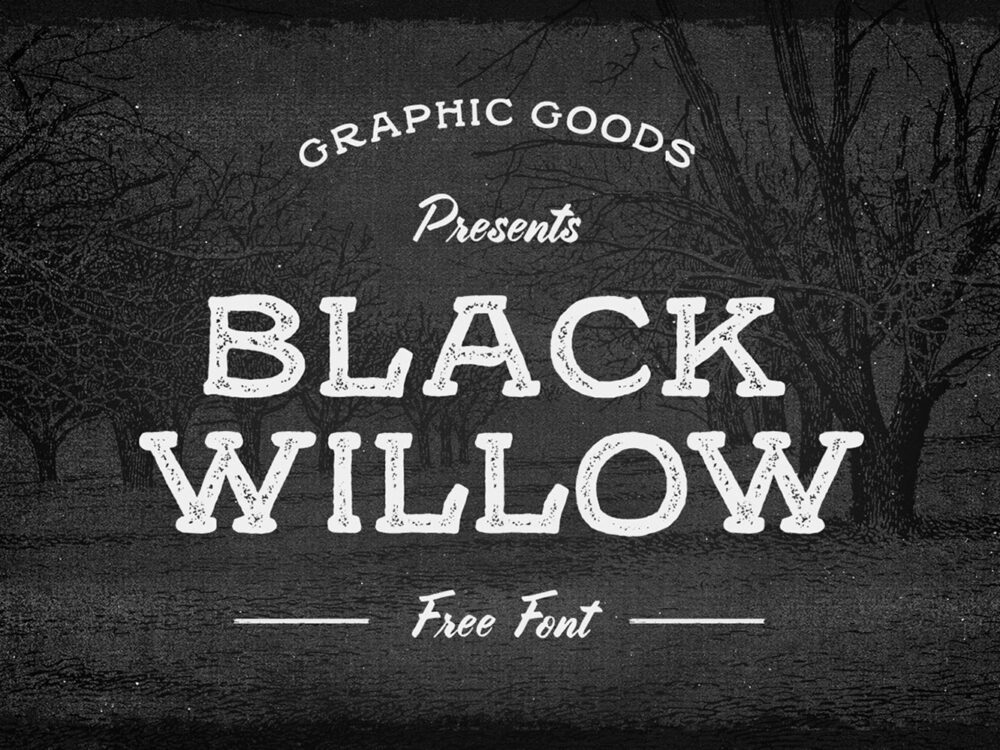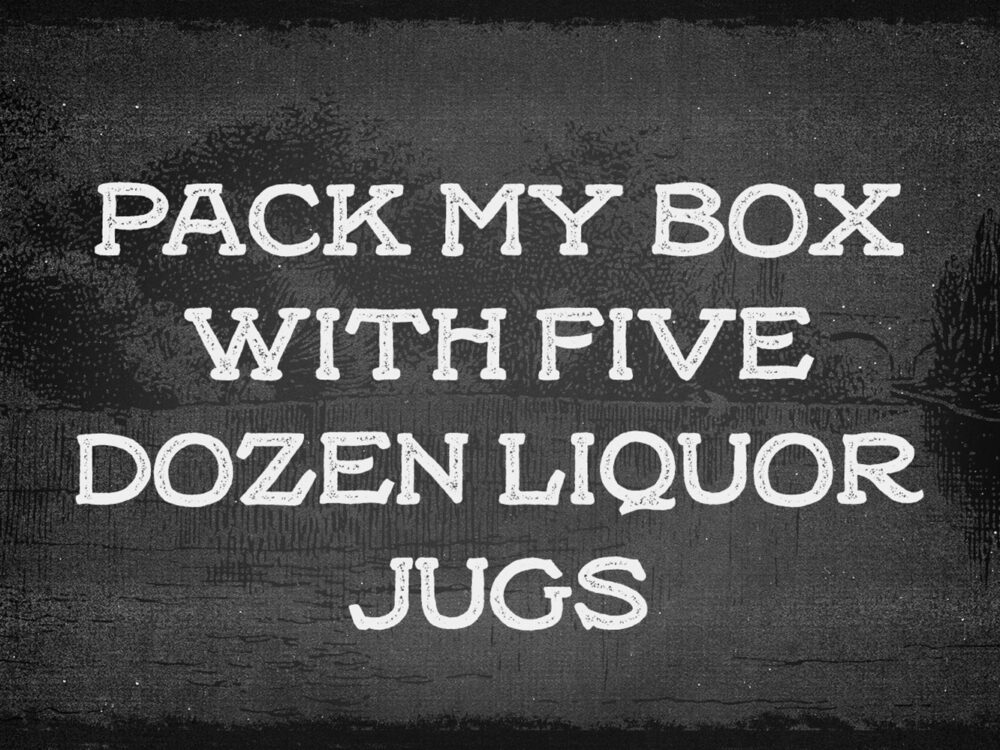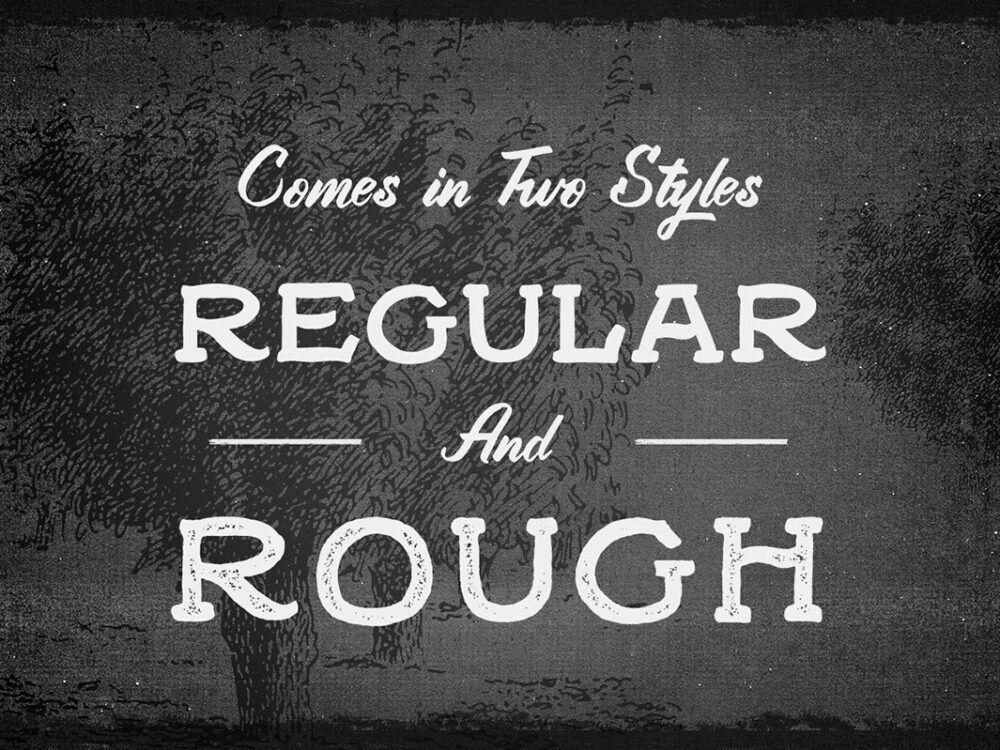
Black Willow Free Font
Free Retro Font
Black Willow Free Font is a bold handwritten font that is great for a variety of design projects in a vintage style. You can create memorable posters, invitations, cards, clothing prints, and more with Black Willow Free Font.